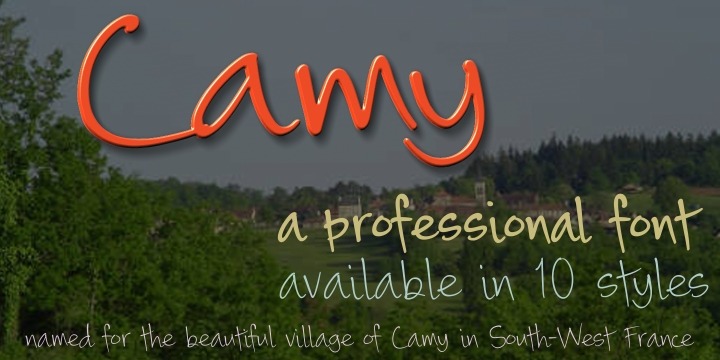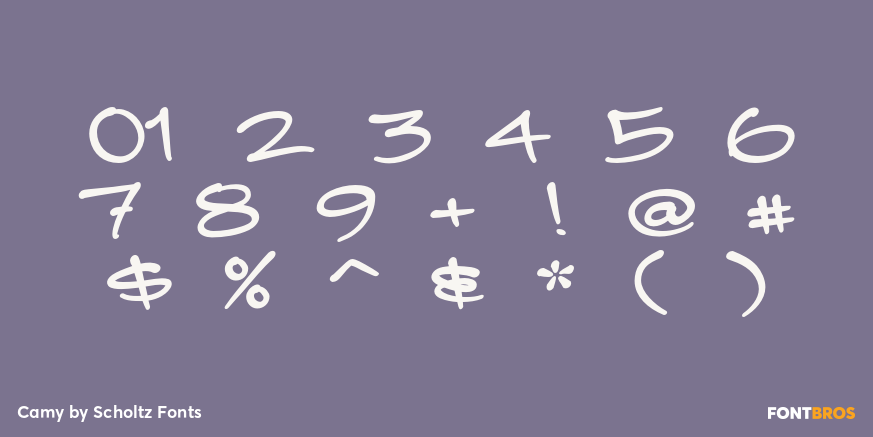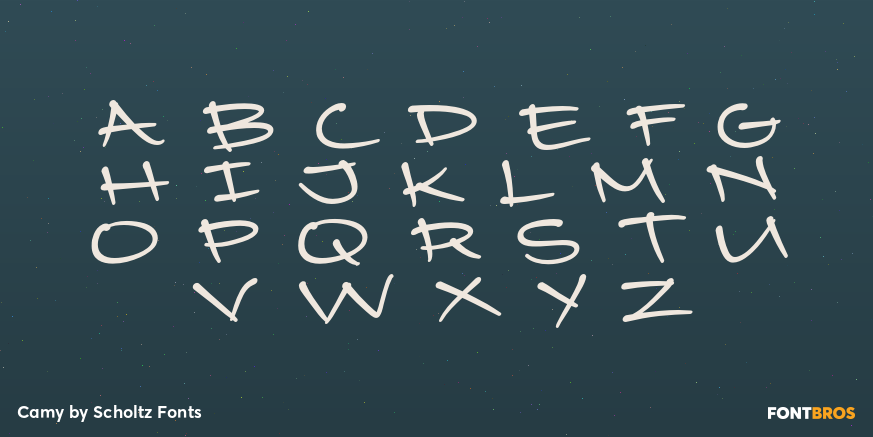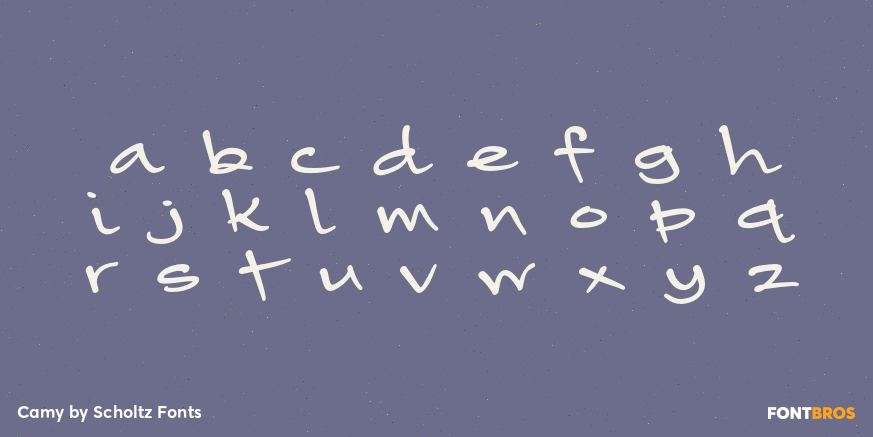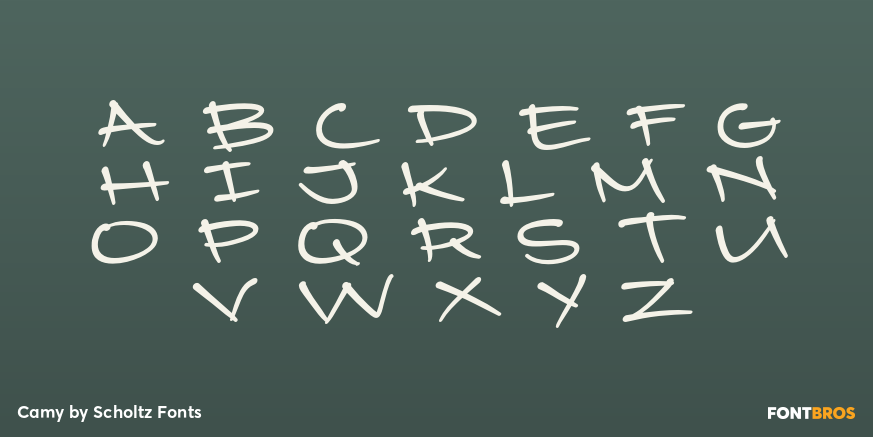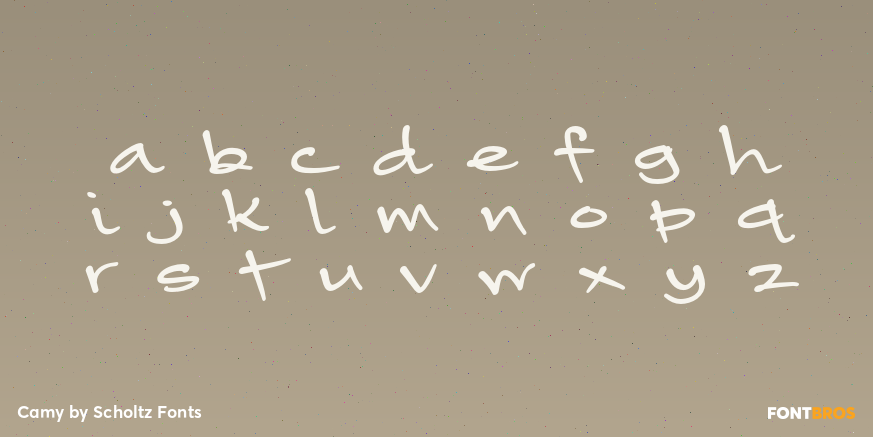
Camy
Buy NowI wanted to create a ?handwriting? font which could be used professionally. I have often needed such a font with a variety of weights and styles for a particular project and have had to resort to mixing fonts, creating a rather messy, amateur job. Camy is named for a little village in South West France where I did much of the initial work on this font.
Camy is ideal for contemporary display work, comes in ten styles, and has a contemporary appeal with its casual, easy to read letters. Camy was designed as a total professional package for designers looking for a handwritten font suitable for all kinds of contemporary display work: the idea being that once you have the Camy Professional Pack you don't have to waste time searching for other handwritten fonts.
Use a combination of styles for product branding, book covers, invitations, greeting cards. The Camy combination works well for both headings and body text.
Camy contains over 250 characters - (upper and lower case characters, punctuation, numerals, symbols and accented characters are present). It has all the accented characters used in the major European languages.